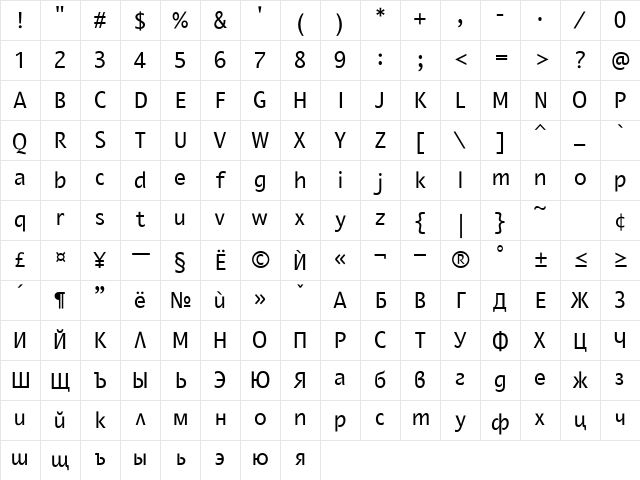
Montana Normal
Montana Family
Montana Normal
Design Context for Montana
Montana is a composed and adaptable typeface that performs quietly and consistently across a wide range of design contexts.